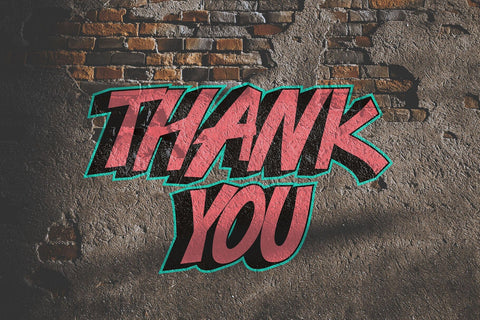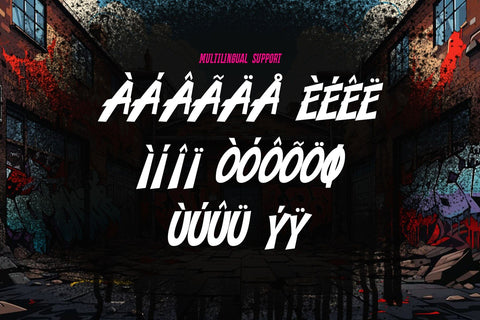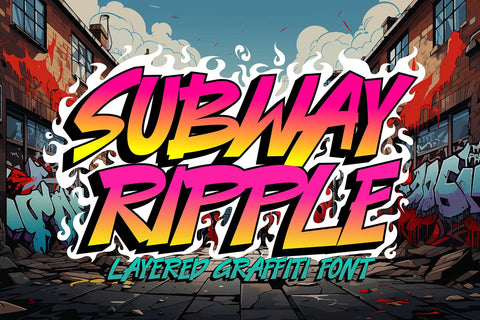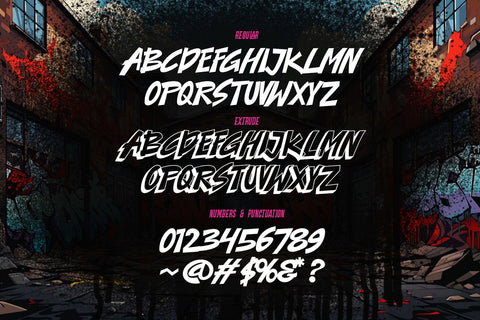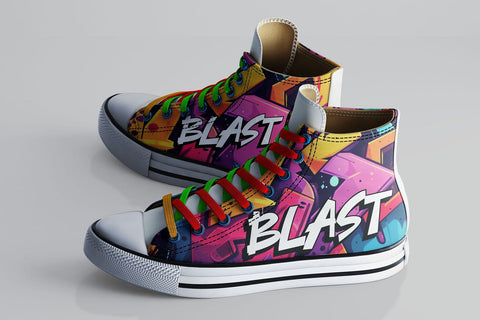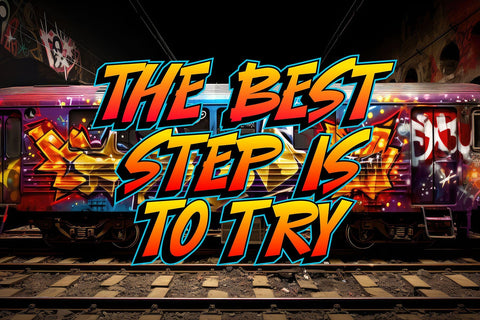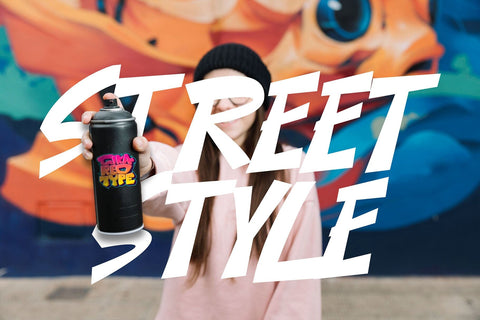
Subway Ripple - A thin Layered Graffiti Font
Subway Ripple is a sophisticated thin layered graffiti font that brings an urban edge to any design project. With its sleek and refined lines, this font captures the essence of street art in a minimalist form. The layered design allows for versatile customization, enabling you to create striking, multi-dimensional effects that stand out in any composition. Subway Ripple is ideal for projects where you want to incorporate a modern, edgy aesthetic while maintaining a clean and streamlined look. Whether you're working on posters, apparel, or digital media, this font adds a unique and contemporary twist to your graffiti-inspired designs.